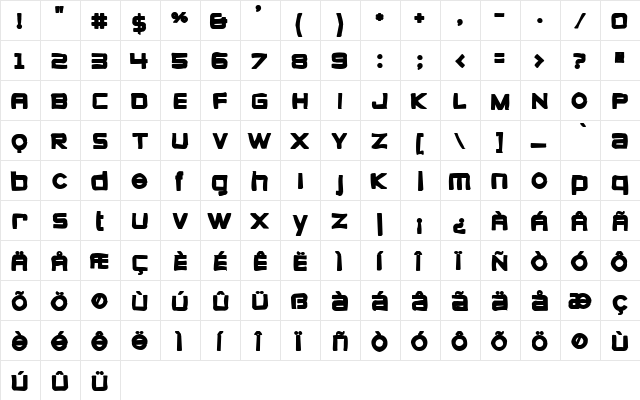
Zeroes Ink Regular
Design Context for Zeroes Ink Typeface
Zeroes Ink takes a measured approach to typography — its balanced proportions and neutral character make it a reliable workhorse for both digital and print work.